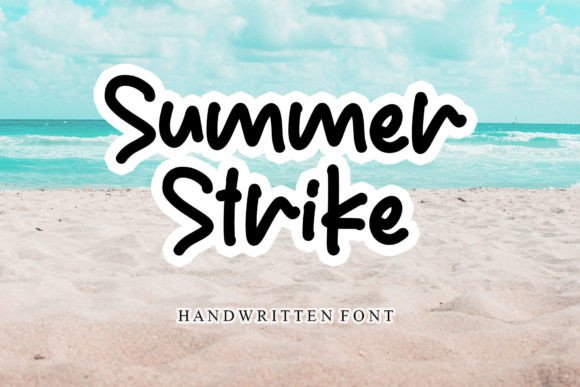
Step into the radiant world of Summer Strike Font, a charming script typeface that echoes the essence of sun-kissed days and balmy nights. Its graceful curves dance across the page, while elegant flourishes add a touch of delightful whimsy. Dive into the world of summer with this font that captures the essence of all things beautiful and carefree.
With its playful spirit, Summer Strike Font is an ideal companion for crafting enchanting invitations that invite friends and family into your summer celebrations. Its cheerful strokes bring life to posters, adding a vibrant touch to summer festivals, beach parties, and outdoor events. Let the Summer Strike Font carry your words on wings of joy, creating designs that radiate warmth and happiness.
Whether you're a creative professional seeking inspiration or an individual seeking to add a personal touch to your digital creations, Summer Strike Font is your perfect choice. Its versatility lends itself to fashion, invitations, branding, and personal projects.
Adorn your social media posts with captivating quotes and messages, crafted with the Summer Strike Font. Its unique charm transforms ordinary words into captivating expressions, adding an irresistible touch of summer magic. Your followers will be mesmerized by the delightful synergy of words and design, leaving them eager to share your creations with their own networks.
Embrace the carefree spirit of summer and let your creativity soar with the Summer Strike Font. Its infectious energy is sure to leave an unforgettable impression on your audience, captivating their hearts and imaginations.